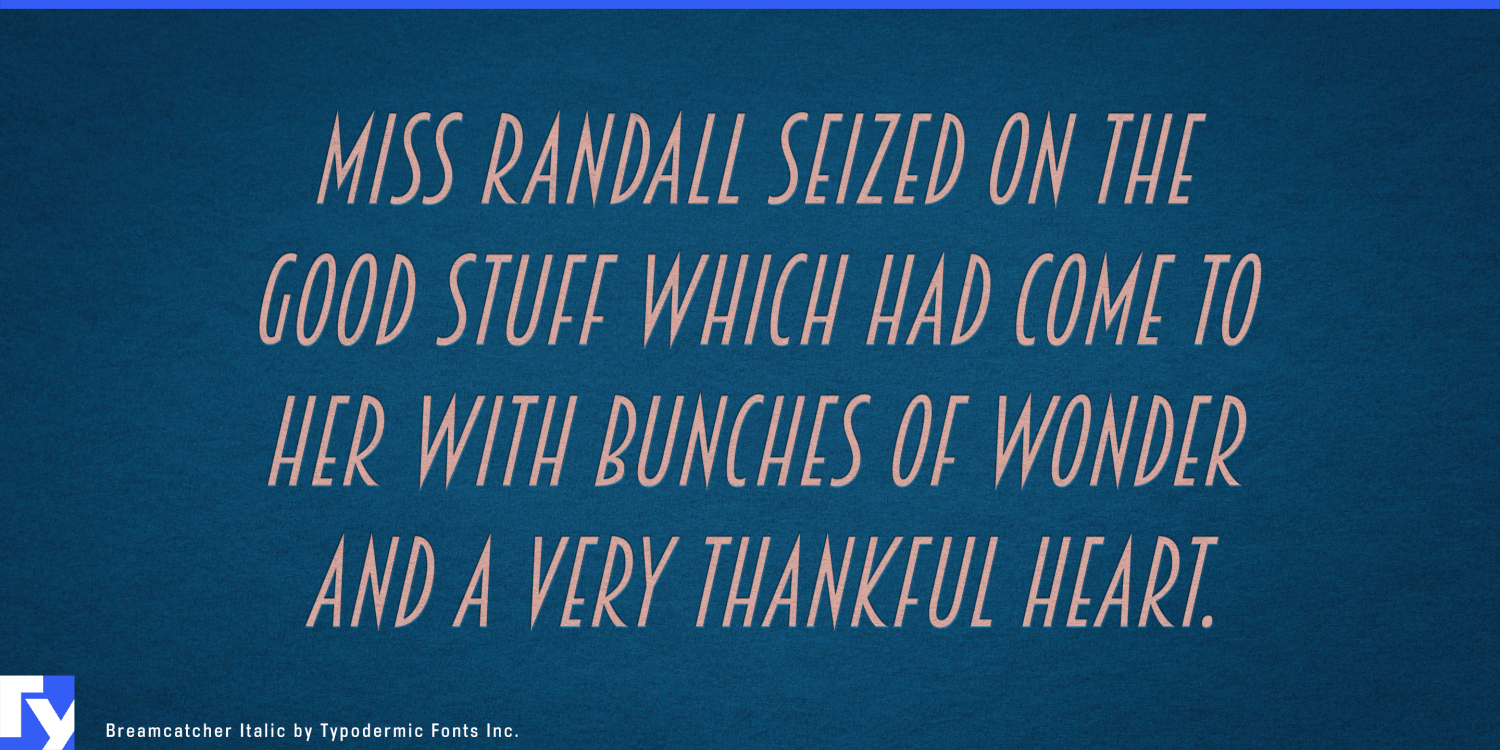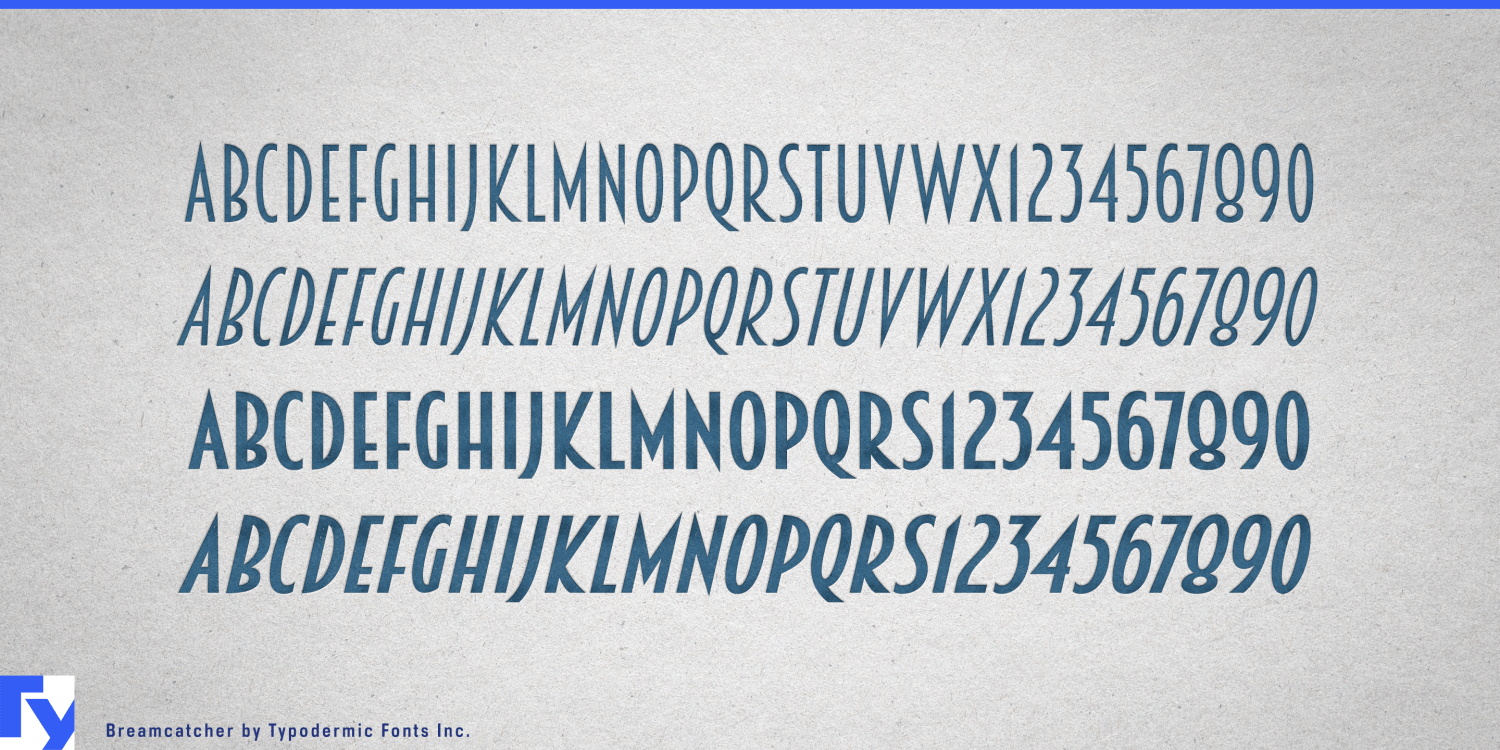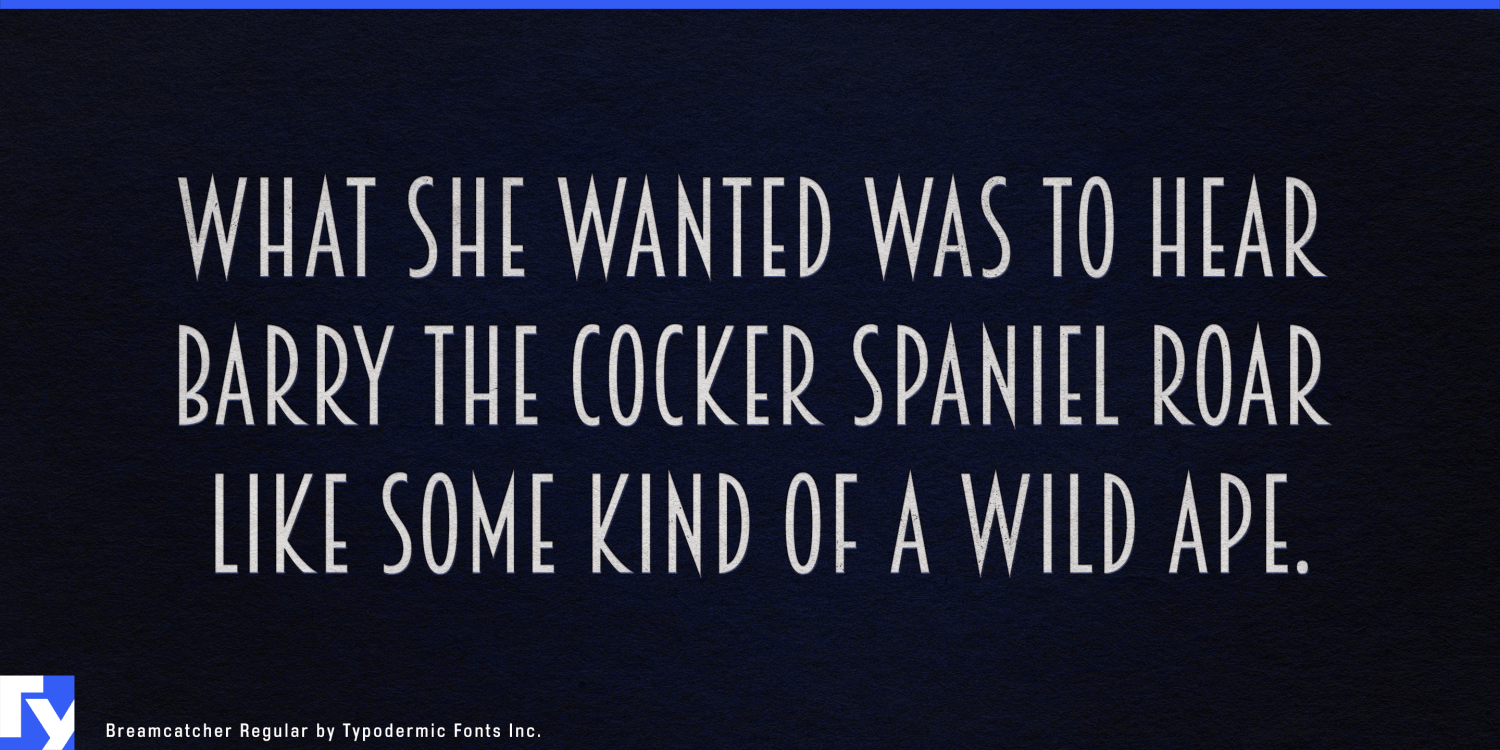
Step into the sophisticated world of the 1920s with Breamcatcher, a typeface that breathes new life into Art Deco elegance. Inspired by the smooth, languid notes of Bing Crosby and Kitty Carlisle's classic "With Every Breath I Take," Breamcatcher…